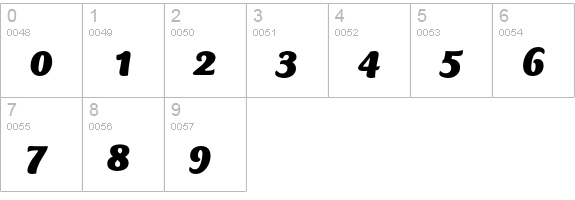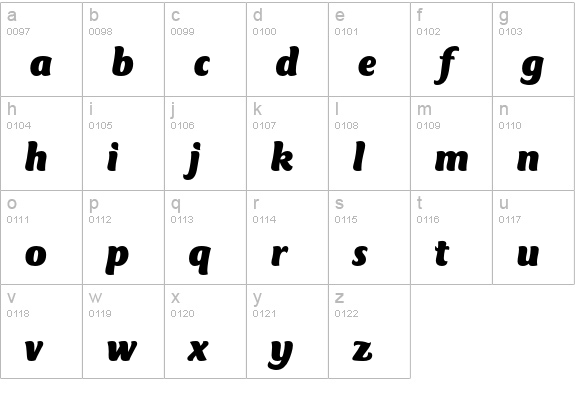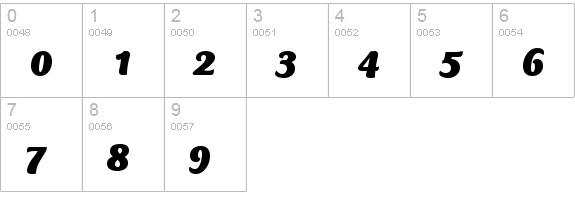
Club Type Mercurius Black Italic is a maximum-weight, dramatic, italic variant in the Club typeface family \xE2\x80\x94 well suited to maximum-impact headlines, posters, and packaging.
Club Type Mercurius Black Italic is a stunning and elegant font that exudes sophistication and style. With its sleek and modern design, this typeface is perfect for adding a touch of luxury to any project. The italic style adds a dynamic flair, making it ideal for use in headings, titles, and other prominent text elements. What's even better is that Club Type Mercurius Black Italic is available for free download at FontsMarket.com. This means you can easily access this premium font without any cost, making it a must-have addition to your font collection. Don't miss out on the opportunity to elevate your design projects with this exquisite typeface. Download Club Type Mercurius Black Italic today and give your creations a touch of sophistication and elegance.